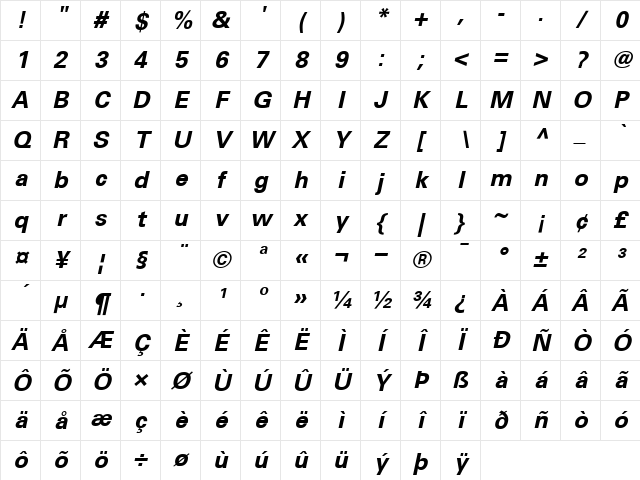
Univers65 is a composed and adaptable typeface that performs quietly and consistently across a wide range of design contexts. The slanted form adds forward momentum and visual energy. Its bold stroke weight gives it real presence on the page.
Pro Tip: Use Univers65 for emphasis, pull quotes, and subheadings where its slanted energy can add rhythm to the layout.